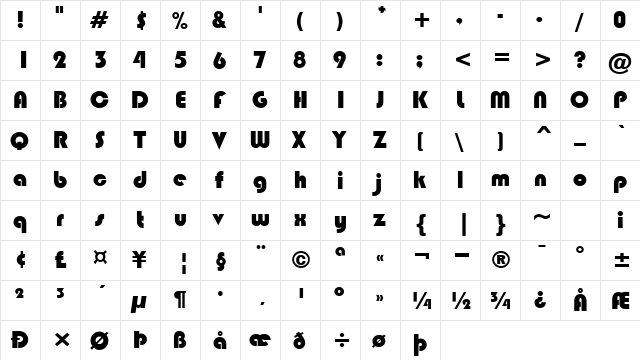
Blimpi Regular
Design Context for Blimpi Typeface
Blimpi offers clean, dependable letterforms without strong stylistic allegiance, making it a practical choice for designers who need flexibility.
Pro Tip: Use Blimpi in both headline and body roles to test its range before committing to a single application.